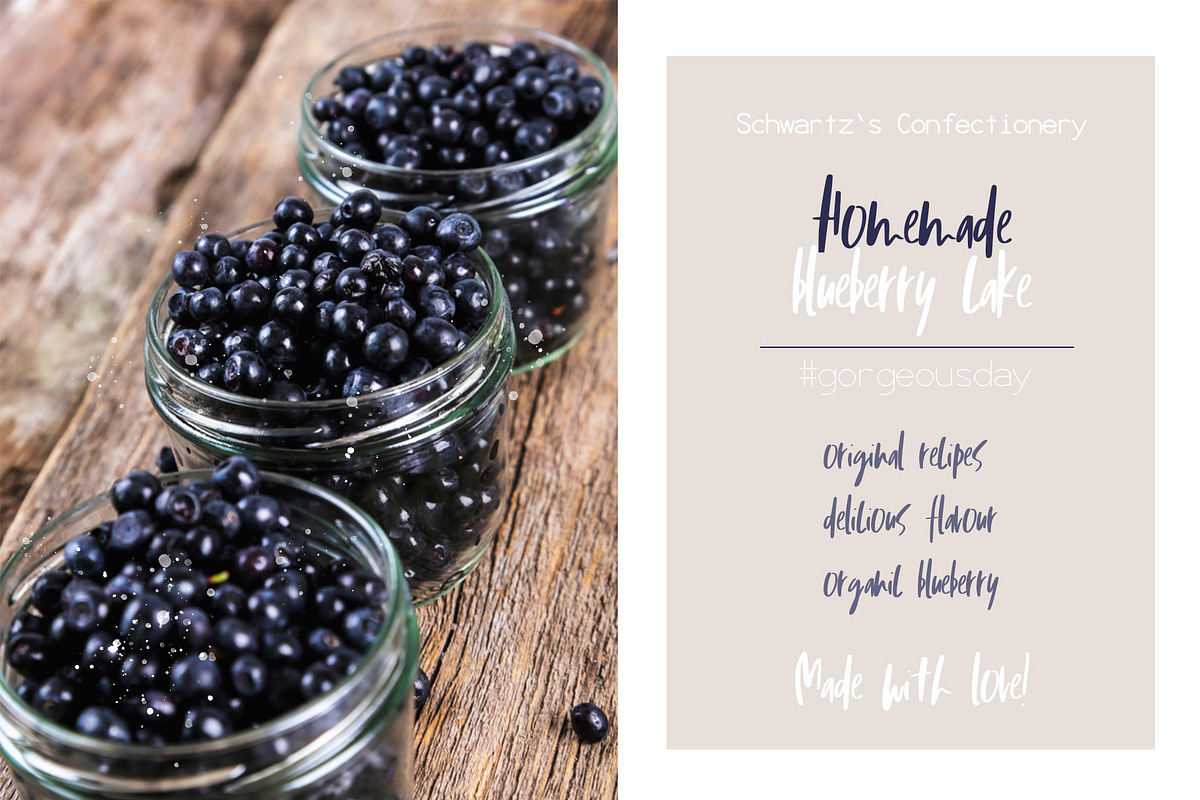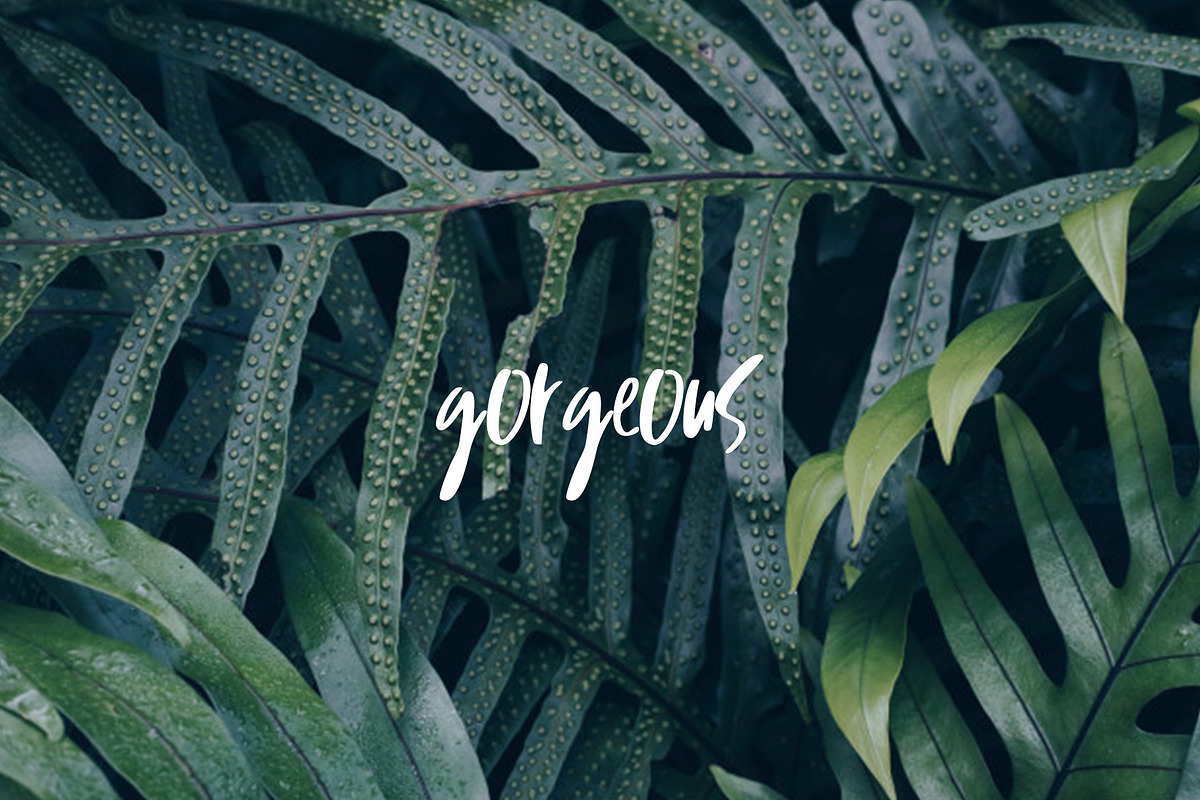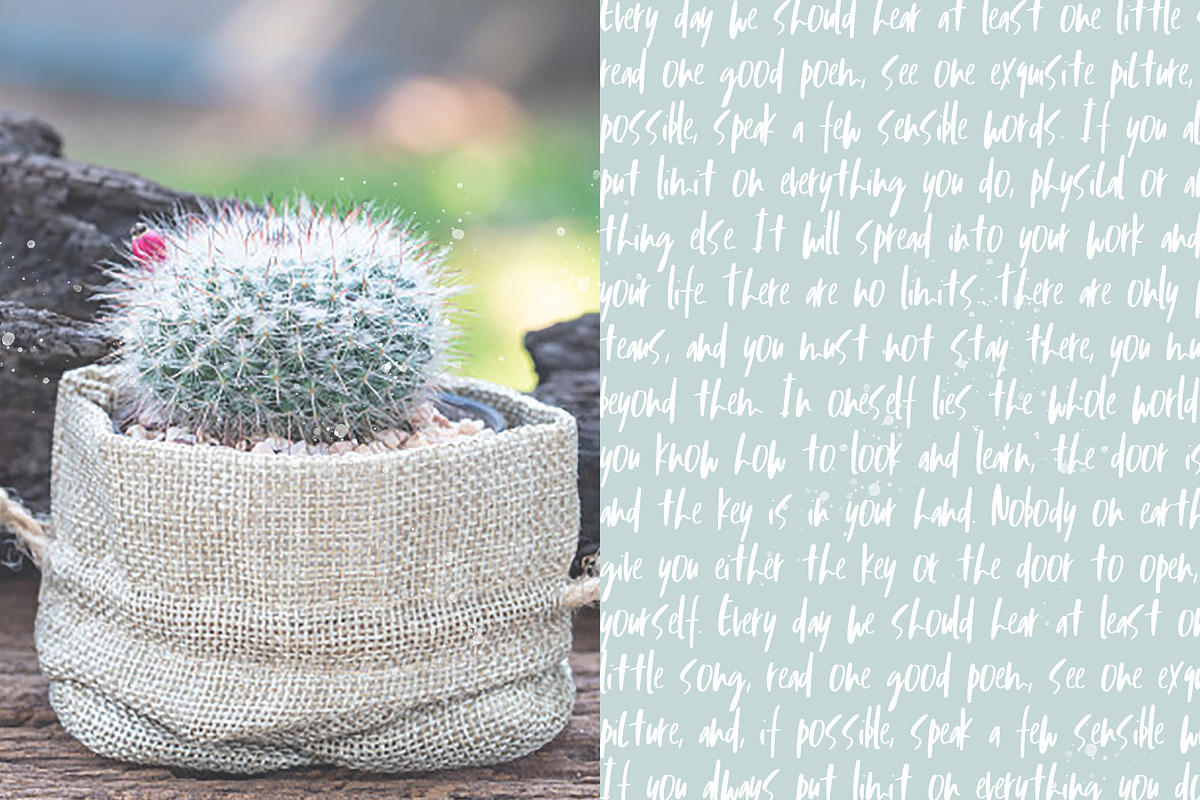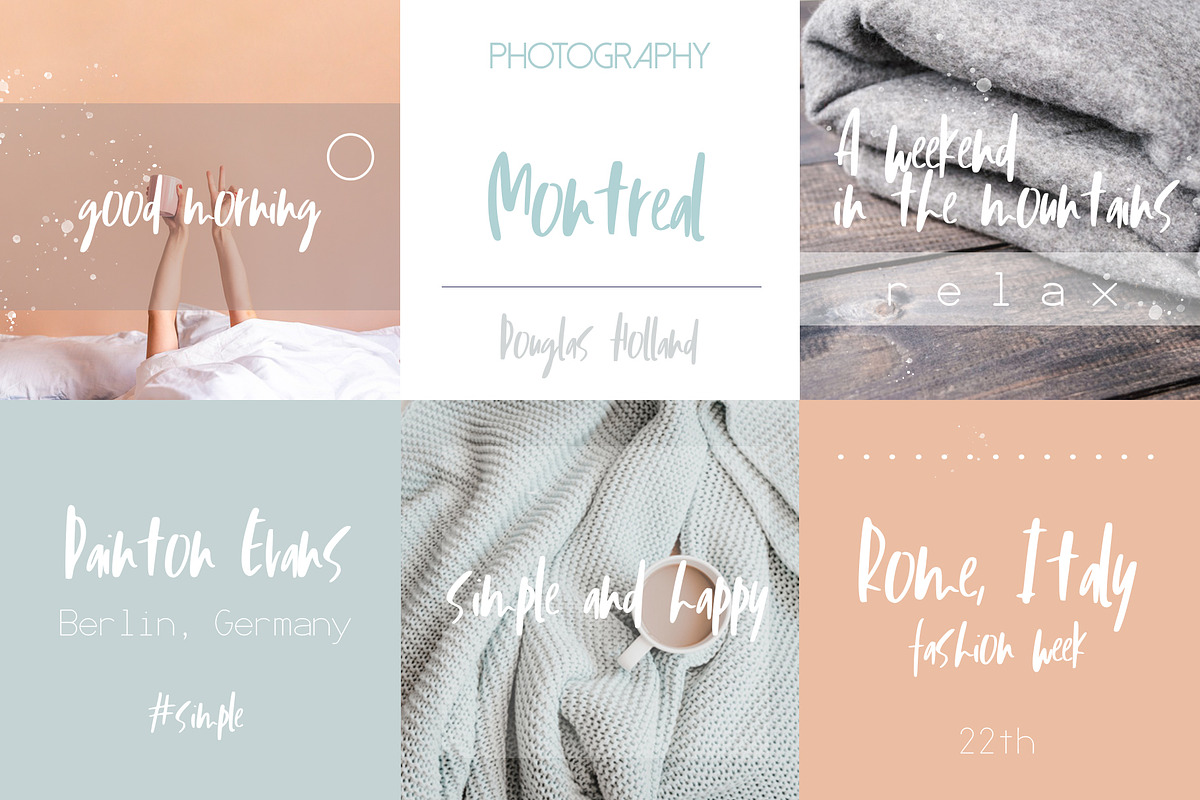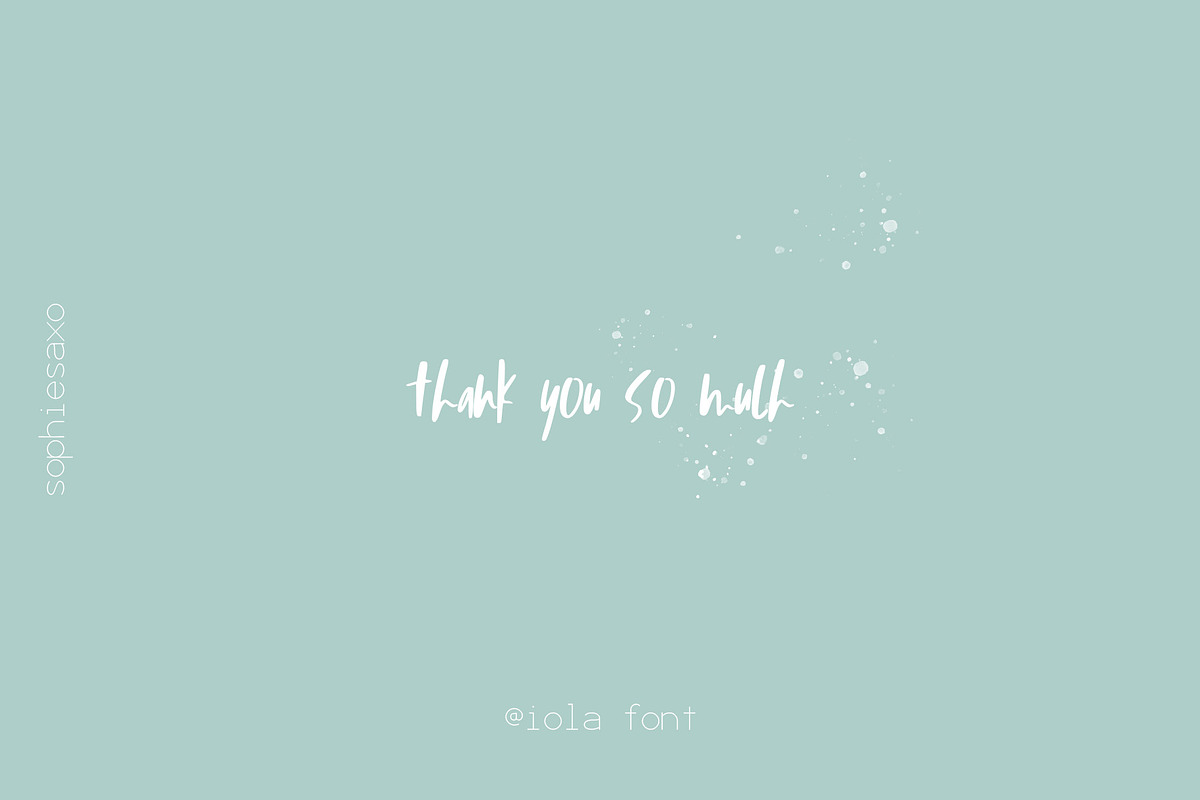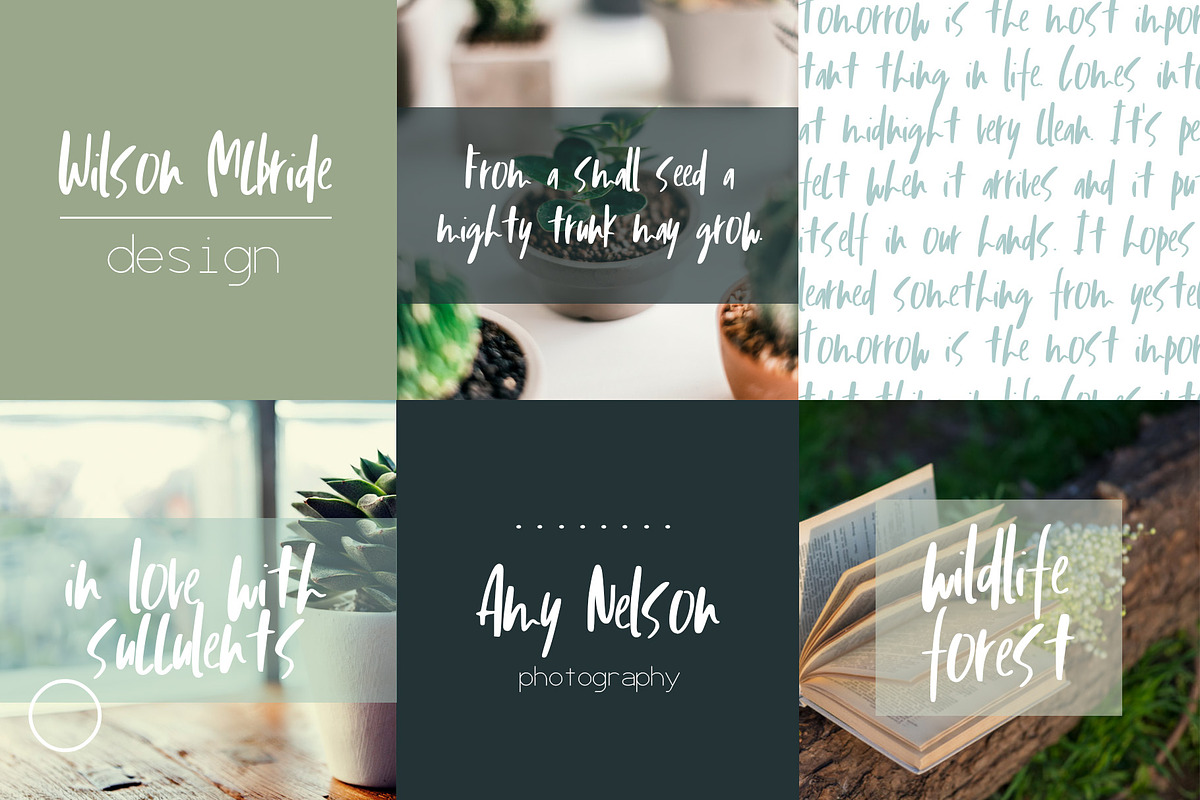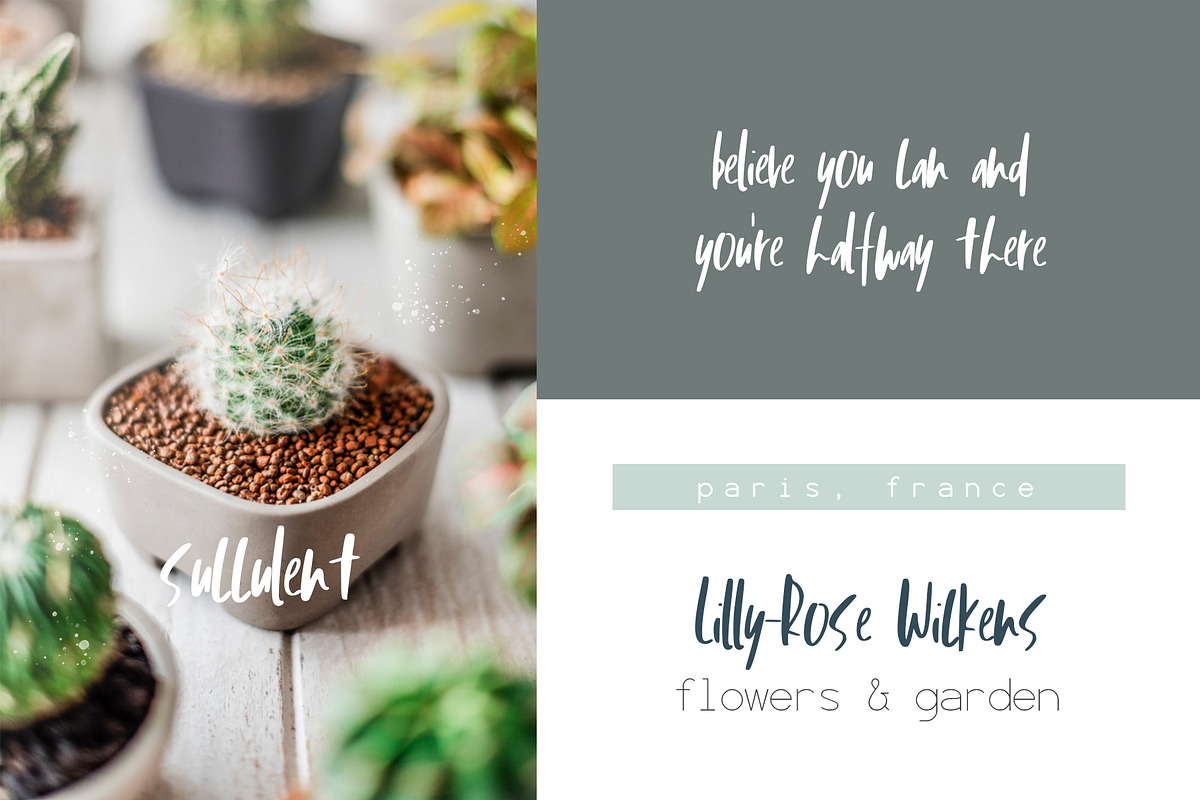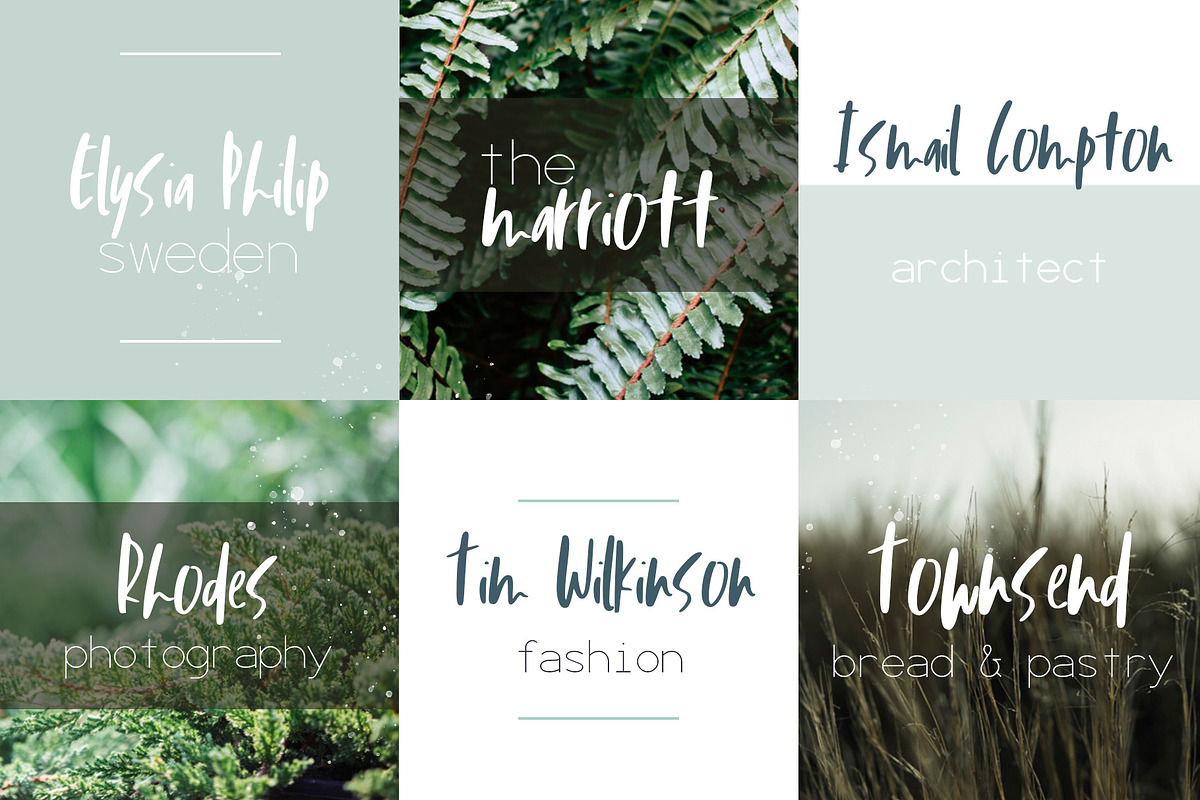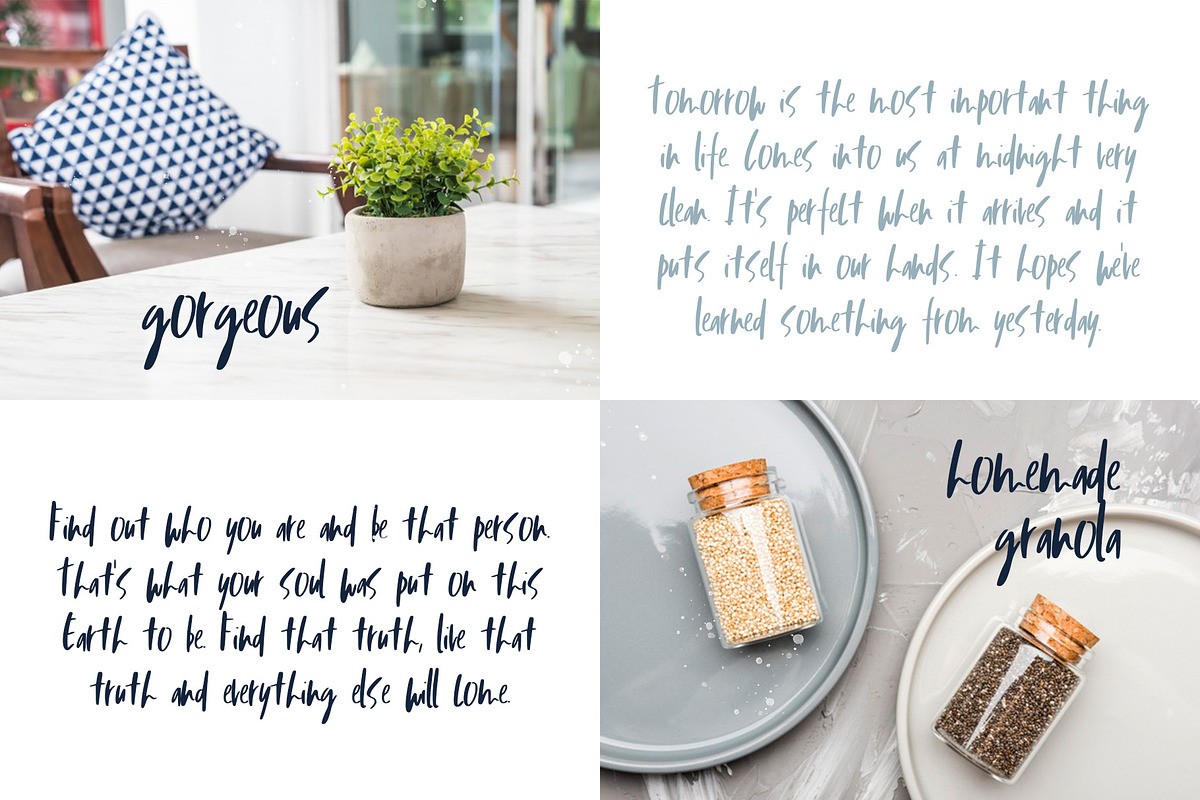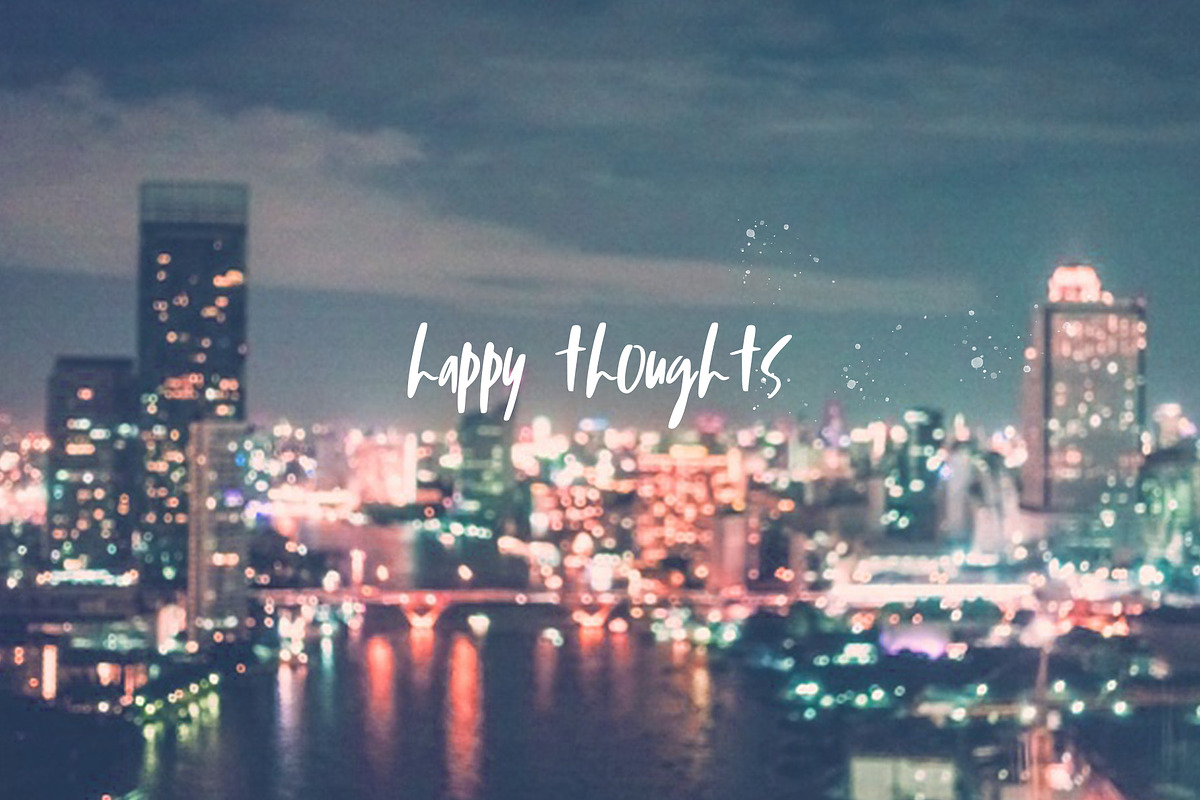
Iola Font
Introducing Iola, a unique brush font.💗 Perfect for any calligraphic and logo designs, wedding and birthday invitations.
Iola font contains upper & lowercase characters, full set of punctuation and numerals.